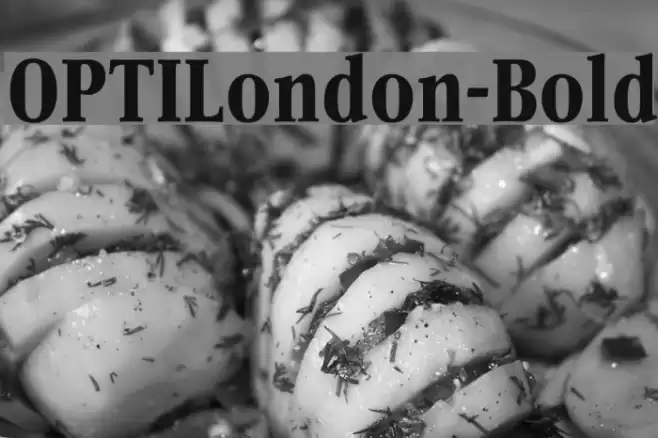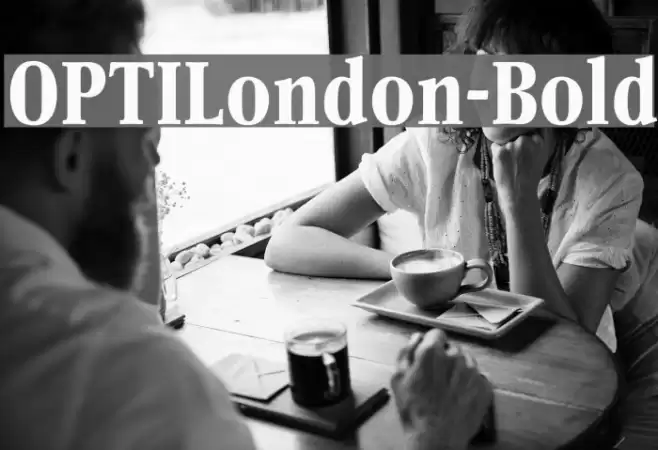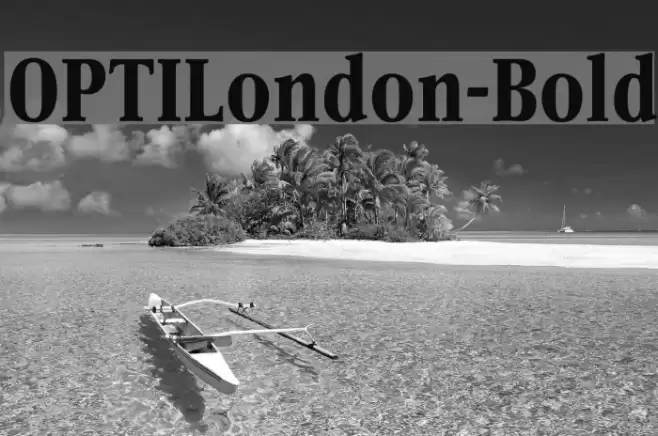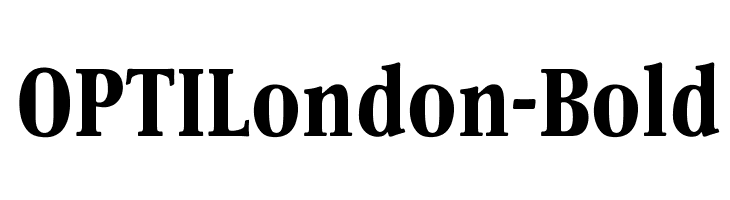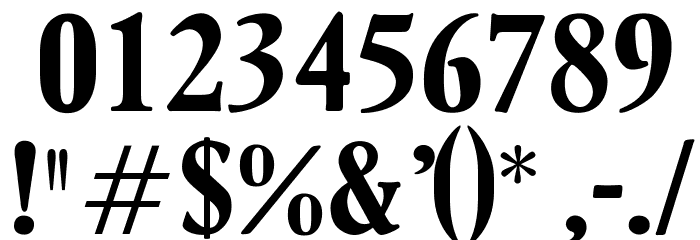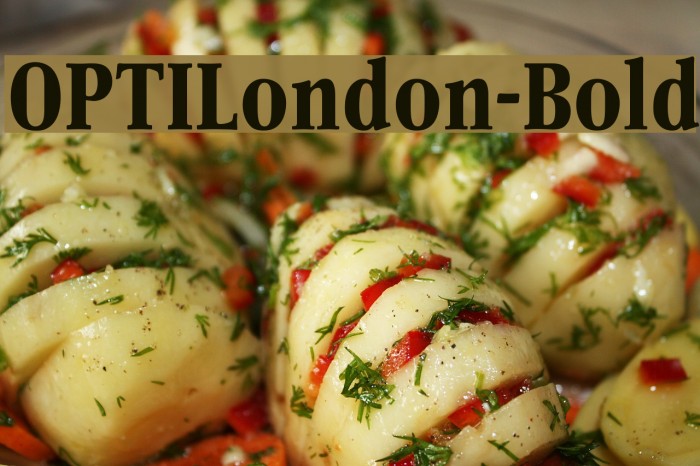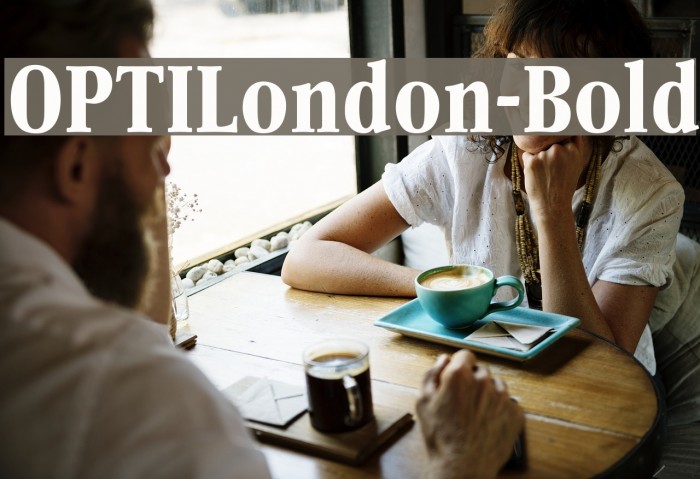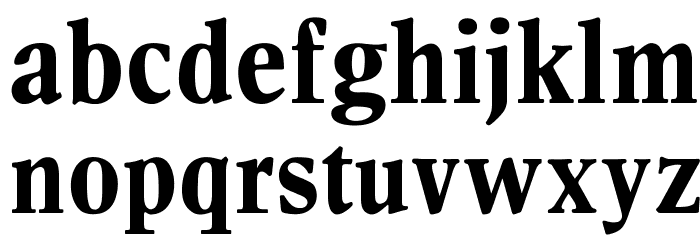
OPTILondon-Bold Font
OPTILondon-Bold Description
This font features a bold and assertive style with strong, thick strokes that convey a sense of authority and confidence. The characters are well-defined with a slight curvature that adds a touch of elegance to the overall appearance. The uppercase letters are particularly striking, with a commanding presence that makes them ideal for headlines and titles. The lowercase letters maintain a consistent weight, ensuring readability and balance. The numerals are robust and clear, making them suitable for various applications. Special characters are included, providing versatility for different design needs.
A bold, authoritative font with strong strokes and elegant curvature from Uncategorized fonts.
- Proposed Projects: Ideal for branding, headlines, posters, and any design requiring a strong visual impact.
- Overall Style: Classic